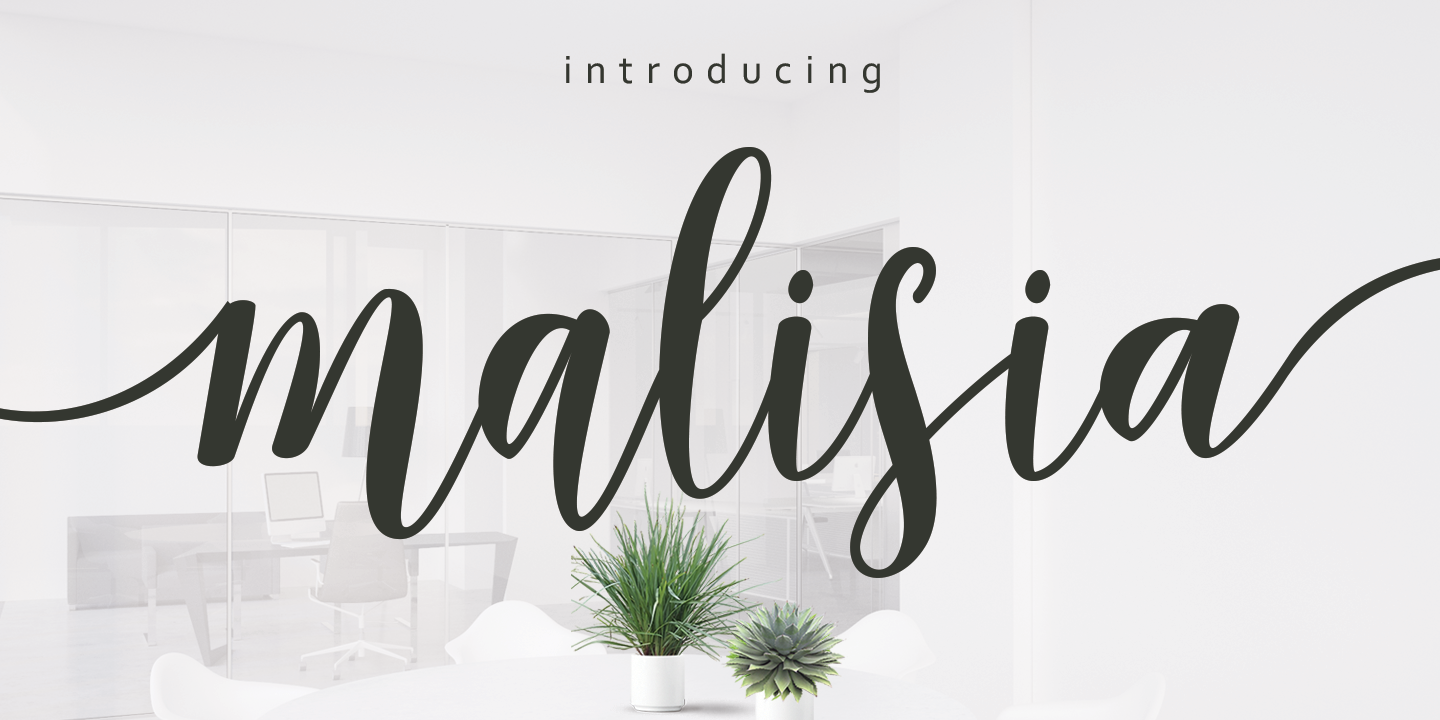
This elegant typeface excels in luxury wedding invitations, feminine brand identities, beauty salon signage, romantic greeting cards, boutique fashion labels, calligraphy workshops, elegant stationery design, and sophisticated event materials. Its graceful flowing style makes it perfect for projects requiring feminine elegance and romantic sophistication.
Malisia Script Font generates excitement through its enchanting elegance that captures the timeless beauty of feminine grace and romantic expression. The font's flowing curves and delicate letterforms create an atmosphere of sophisticated charm that resonates with audiences seeking refined beauty and emotional connection. Its meticulously scripted character variations deliver graceful readability while maintaining distinctive romantic personality that reflects the artistry of hand-lettered elegance and the power of beautiful written expression.
The Malisia Script Font family includes multiple romantic variations such as regular, light, bold, ornamental, and flourished styles. Each family member maintains the distinctive feminine aesthetic while offering different levels of elegance for various romantic applications. This enchanting collection empowers designers to create beautiful compositions that celebrate the full spectrum of feminine expression from subtle grace to bold romantic declarations.
The Malisia Script Font Free Download offers designers access to premium romantic typography that brings authentic feminine elegance to any project. Its graceful character and sophisticated appeal make it ideal for creating memorable luxury brands and engaging romantic communications that inspire emotion. Whether developing wedding identities, designing beauty materials, or crafting elegant marketing campaigns, this font provides the romantic sophistication and feminine authenticity essential for projects targeting audiences who appreciate timeless beauty, celebrate love, and embrace the transformative power of elegant design and heartfelt expression.